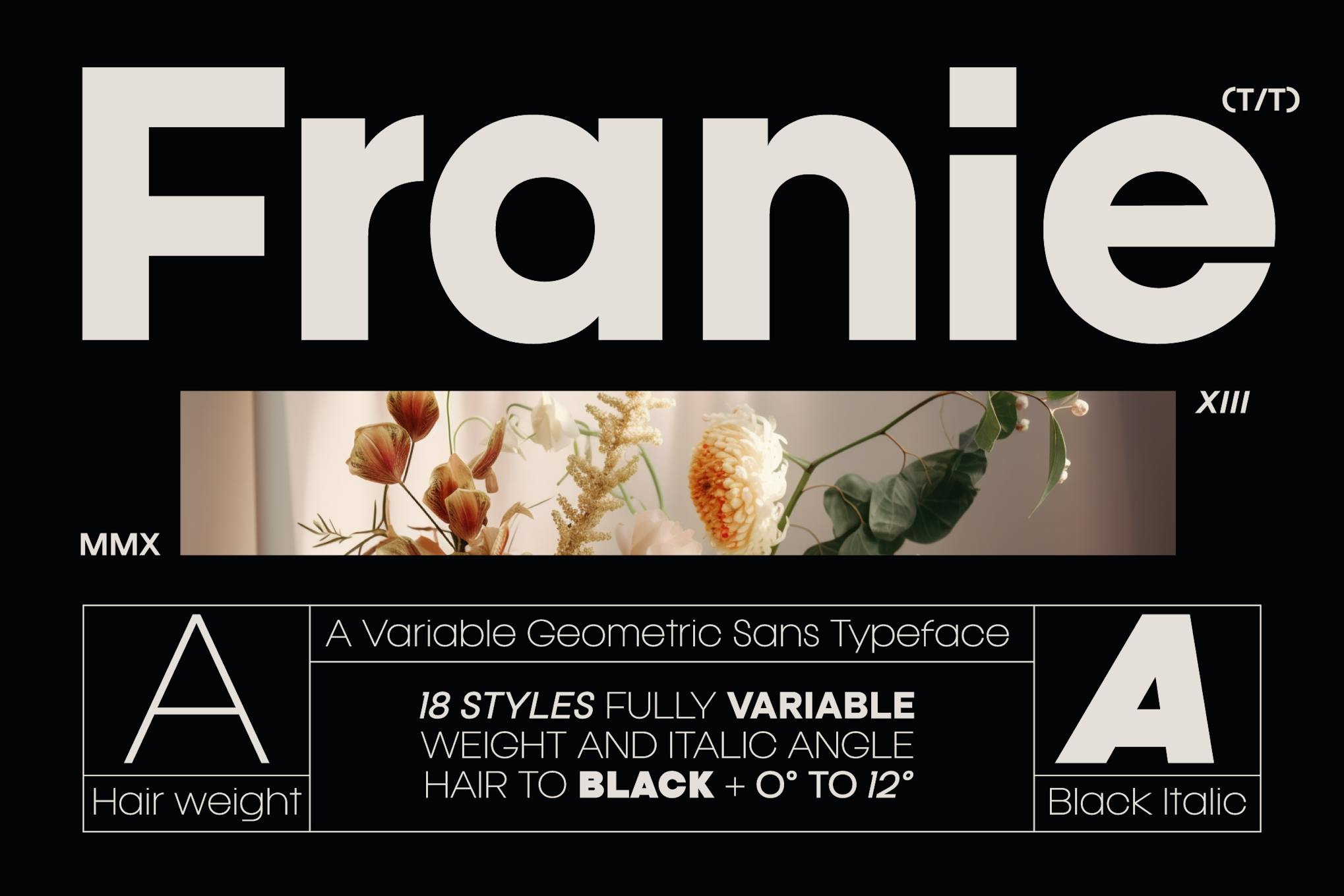
Franie Geometric Sans Font
Franie Geometric Sans Font is ideal for modern logo design, tech branding projects, architectural presentations, minimalist poster design, user interface elements, contemporary signage systems, corporate identity packages, digital app design, and clean editorial layouts.
What makes Franie Geometric Sans Font exciting is its perfect mathematical precision combined with subtle optical corrections that create flawless visual harmony. This sophisticated typeface features carefully balanced geometric forms with consistent stroke weights and clean angles that embody contemporary design principles. The font's structured appearance conveys reliability and innovation, making it perfect for brands that want to communicate professionalism, forward-thinking, and technical excellence without sacrificing visual appeal.
Franie Geometric Sans Font family includes multiple weight options: Thin, Light, Regular, Medium, SemiBold, Bold, ExtraBold, and Black, each available in standard and oblique styles. This comprehensive range provides designers with 16 distinct variations, enabling precise typographic control for complex design systems and brand hierarchies.
The Franie Geometric Sans Font Free Download offers access to premium geometric typography that performs exceptionally well across digital and print media. This font excels in technology sectors, architectural firms, consulting agencies, and modern lifestyle brands where clean aesthetics and clear communication are paramount. The consistent letterforms ensure excellent readability in both large display sizes and small text applications.
Design professionals value Franie Geometric Sans Font for its versatility and technical precision. The font's balanced proportions work beautifully in data visualization, infographics, and technical documentation where clarity is essential. Its neutral character allows content to shine while maintaining visual sophistication.
Whether used for cutting-edge startup branding or established corporate communications, Franie Geometric Sans Font delivers timeless geometric elegance that adapts seamlessly to evolving design trends while maintaining its distinctive contemporary character.